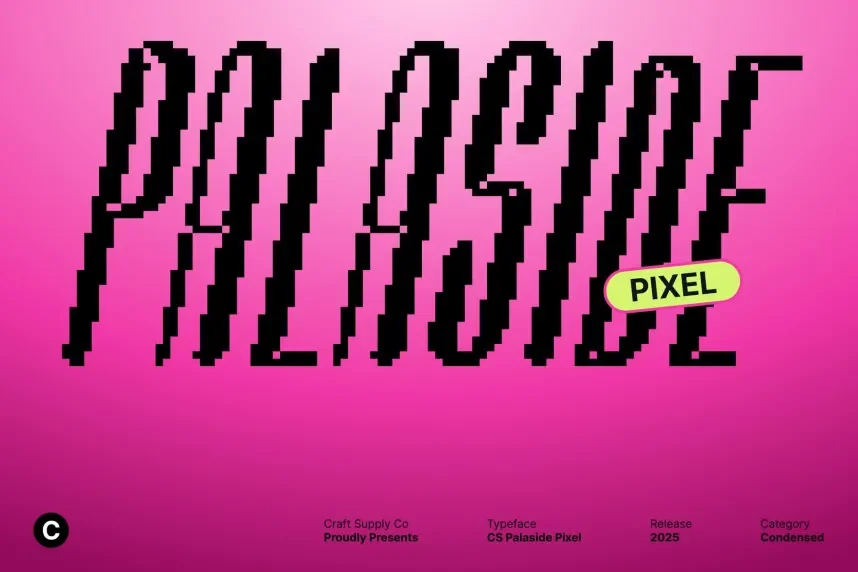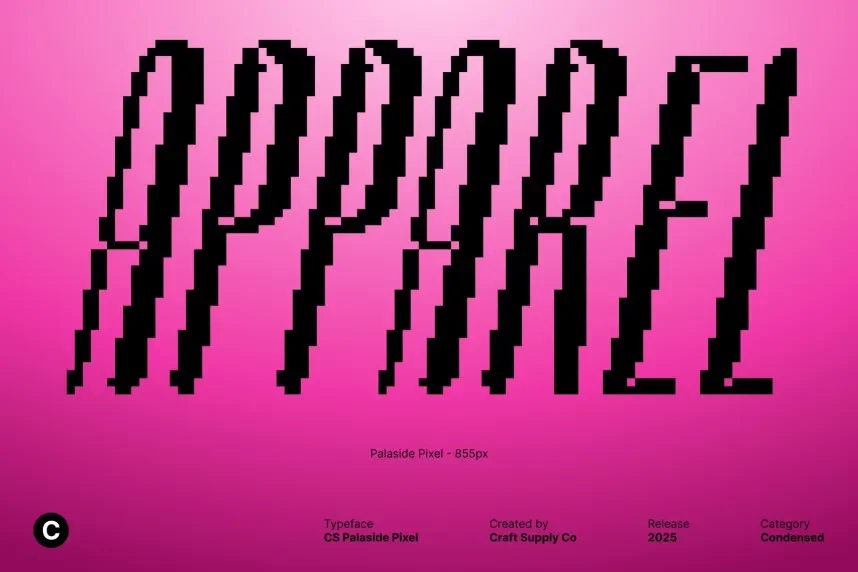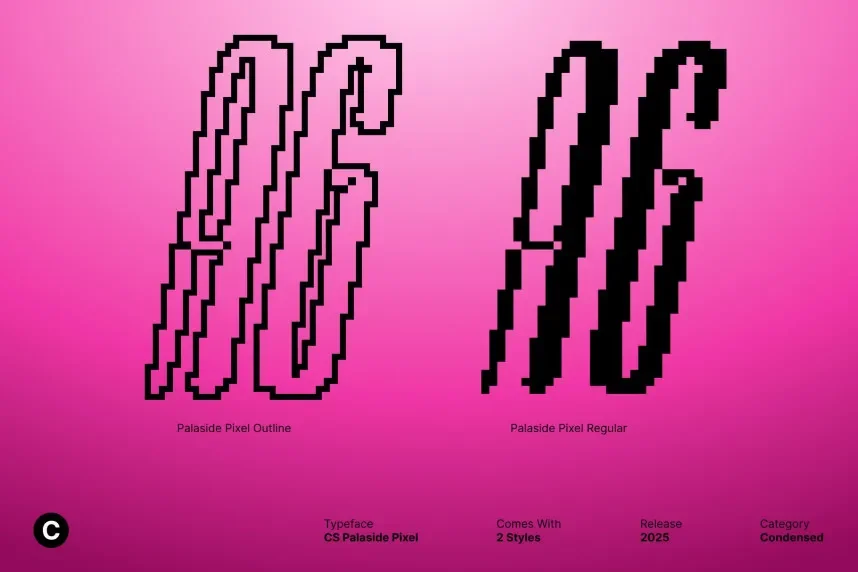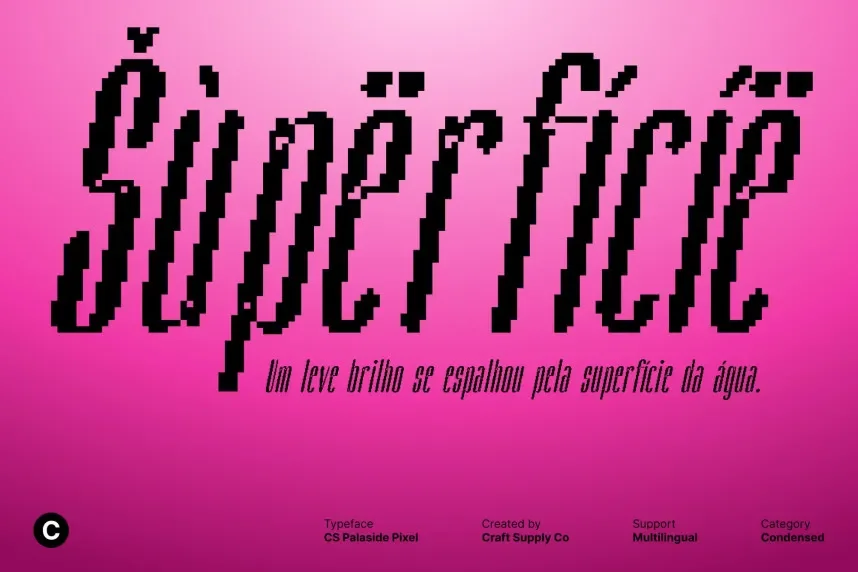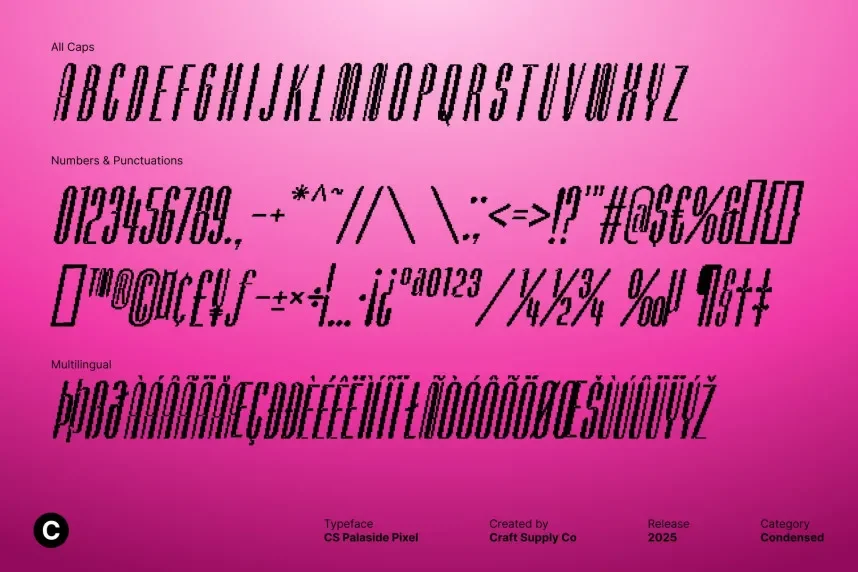
Palaside Pixel Font addresses readability issues in retro-styled digital interfaces where standard fonts break visual consistency. Pixel-based layouts require precise grid alignment to remain legible.
Palaside Pixel Font belongs to the pixel font category, built on a fixed grid with sharp edges and consistent spacing. The letterforms follow pixel constraints, ensuring predictable rendering across screens.